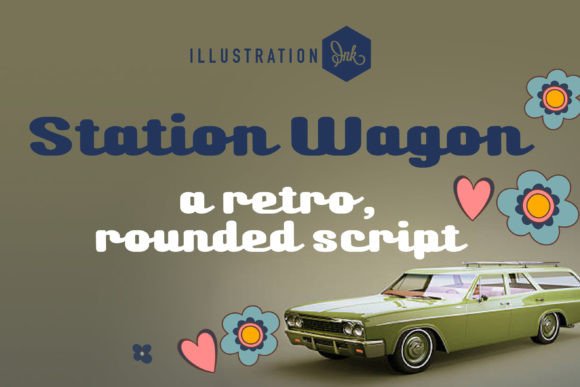
Attention all creative enthusiasts! Introducing Station Wagon Font, the captivating script font that will ignite your imagination and elevate your designs to new heights.
Immerse yourself in the nostalgia of vintage cursive, where each letter dances with effortless elegance and charm. Station Wagon Font's upright and heavy-rounded lettering exudes a timeless appeal that will add a touch of retro flair to any project.
Whether you're a seasoned designer or just starting your typographic journey, Station Wagon Font is the perfect tool to bring your creative visions to life. Embrace its playful spirit and watch as your words transform into mesmerizing works of art.
Unleash your inner artist and explore the endless possibilities that await you with Station Wagon Font. From enchanting invitations to captivating social media posts, this font will empower you to express yourself with unparalleled style and grace.
Imagine the joy of penning heartfelt letters that your loved ones will cherish forever, or creating stunning logos that will leave an unforgettable mark on the world. With Station Wagon Font, the power of expression is at your fingertips.